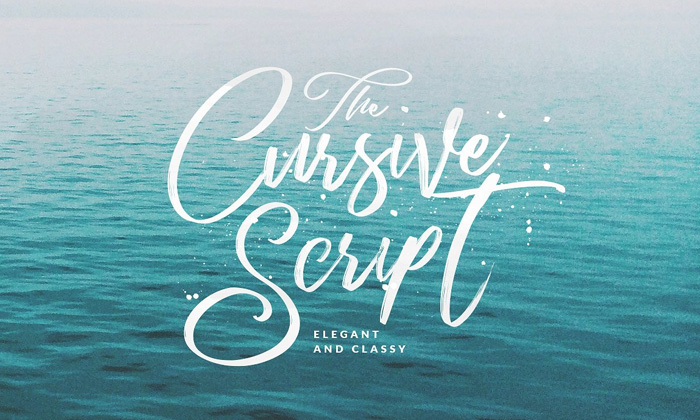
Free Historea Handlettering Script Font
Today we bring for all designers most elegant and stylish Free Historea Handlettering Script Font that will make your designs eye-catchy and creative. You can use this font in brochures, quotes, menu, food designs, fashion brands, social media promotion designs, fast food templates and many more.
Designed by: Typia Nesia